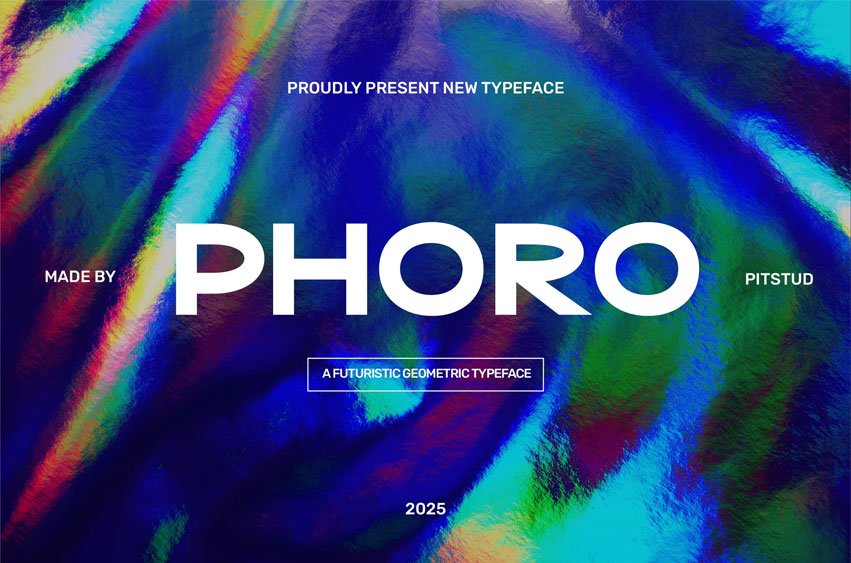
Phoro Font Modern Bold Font is a geometric typeface designed to bring strength, presence, and style to modern projects. With sharp lines, balanced proportions, and versatile simplicity, Phoro excels in branding, digital platforms, and creative designs.
Perfect For Whether you’re crafting a tech startup identity, advertising campaign, or editorial layout, Phoro blends minimalism with futuristic energy. Its clarity and bold weight suit logos, posters, packaging, digital content, and corporate branding.
Font Features
• Geometric & Futuristic Design: Clean shapes with bold impact.
• Complete Character Set: Uppercase, lowercase, numbers, punctuation, symbols.
• OpenType Features: Alternates, ligatures, stylistic options.
• Multilingual Support: Supports multiple languages for global use.
Phoro combines innovation and readability, ideal for projects needing a strong visual impact. Its futuristic style works seamlessly across print and digital media, delivering a professional look.
• Brand Identity: Create a confident, modern visual brand.
• Advertising & Marketing: Stand out in high-impact campaigns.
• Editorial Design: Craft clean layouts with strong headlines.
• Product Packaging: Enhance modern, tech-inspired products.
• Logo Design: Design memorable, futuristic brand marks.